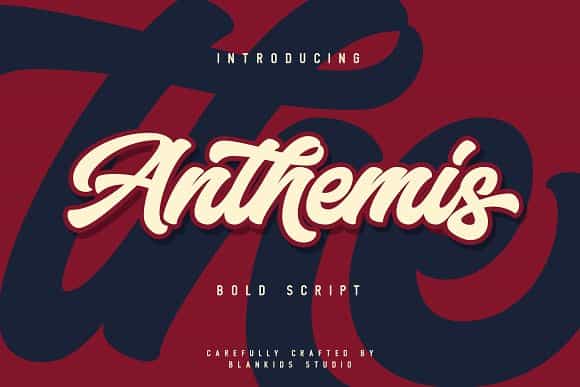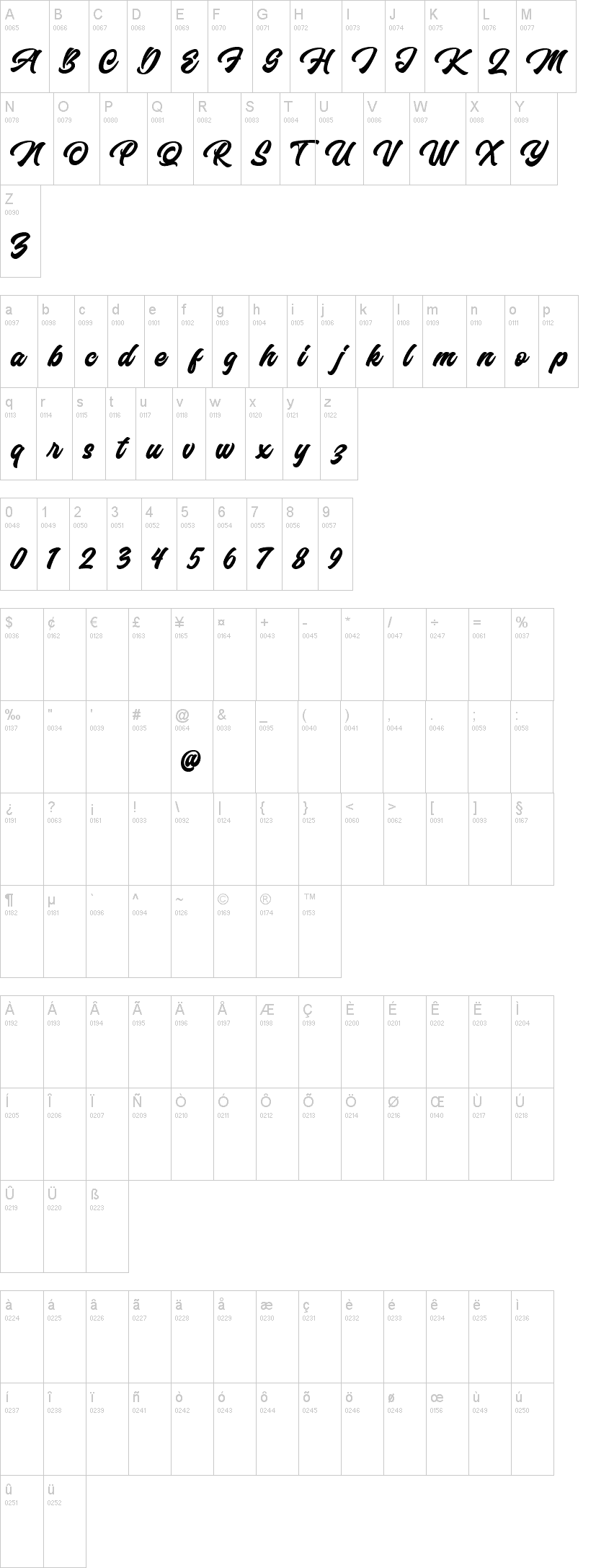
Presenting our new release font named Anthemis, the script font is perfect for the branding logotype, packaging, poster, headline, book cover, flyer, t-shirt design and much more.